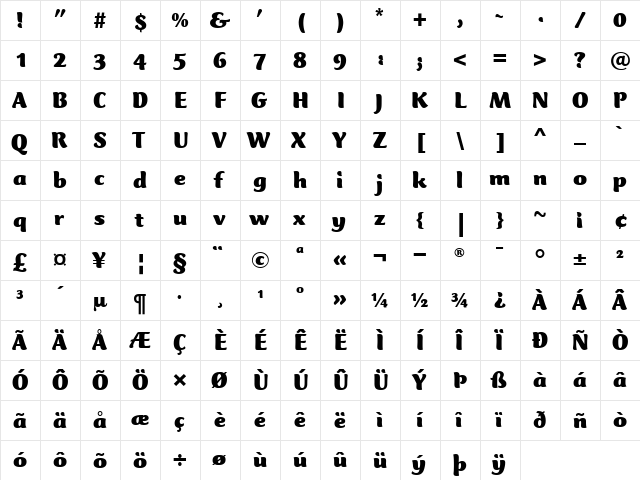
ClubTypeMercurius-Black Black
Design Context for ClubTypeMercurius-Black Typeface
ClubTypeMercurius-Black takes a measured approach to typography — its balanced proportions and neutral character make it a reliable workhorse for both digital and print work.